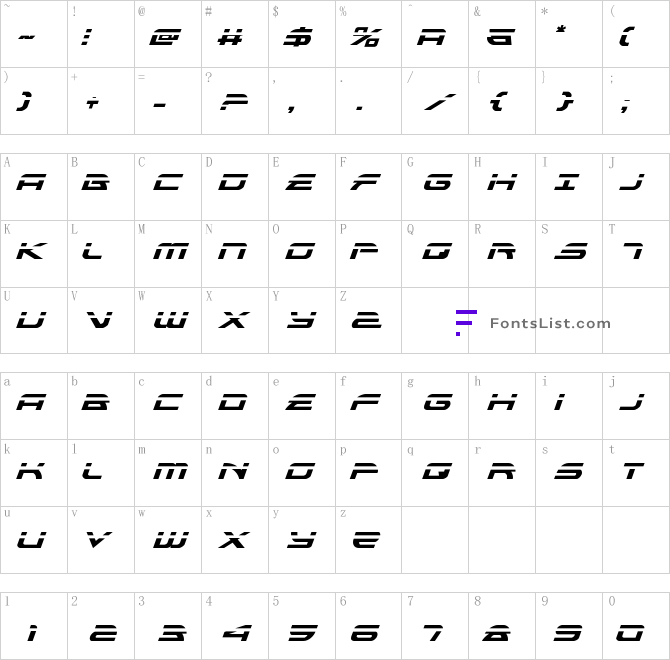
- Font Name:Alexis Laser Italic
Alexis-Laser-Italic-copy-2-.ttf is a very beautiful artistic font, Alexis-Laser-Italic-copy-2-.ttf is widely used in the design and printing of various books and pictures,Alexis-Laser-Italic-copy-2-.ttf has a strong visual impact,Alexis-Laser-Italic-copy-2-.ttf is a commonly used font in newspapers, magazines and books, and is used in posters, e-commerce Poster design, store design, logo design, font design and other fields.Alexis-Laser-Italic-copy-2-.